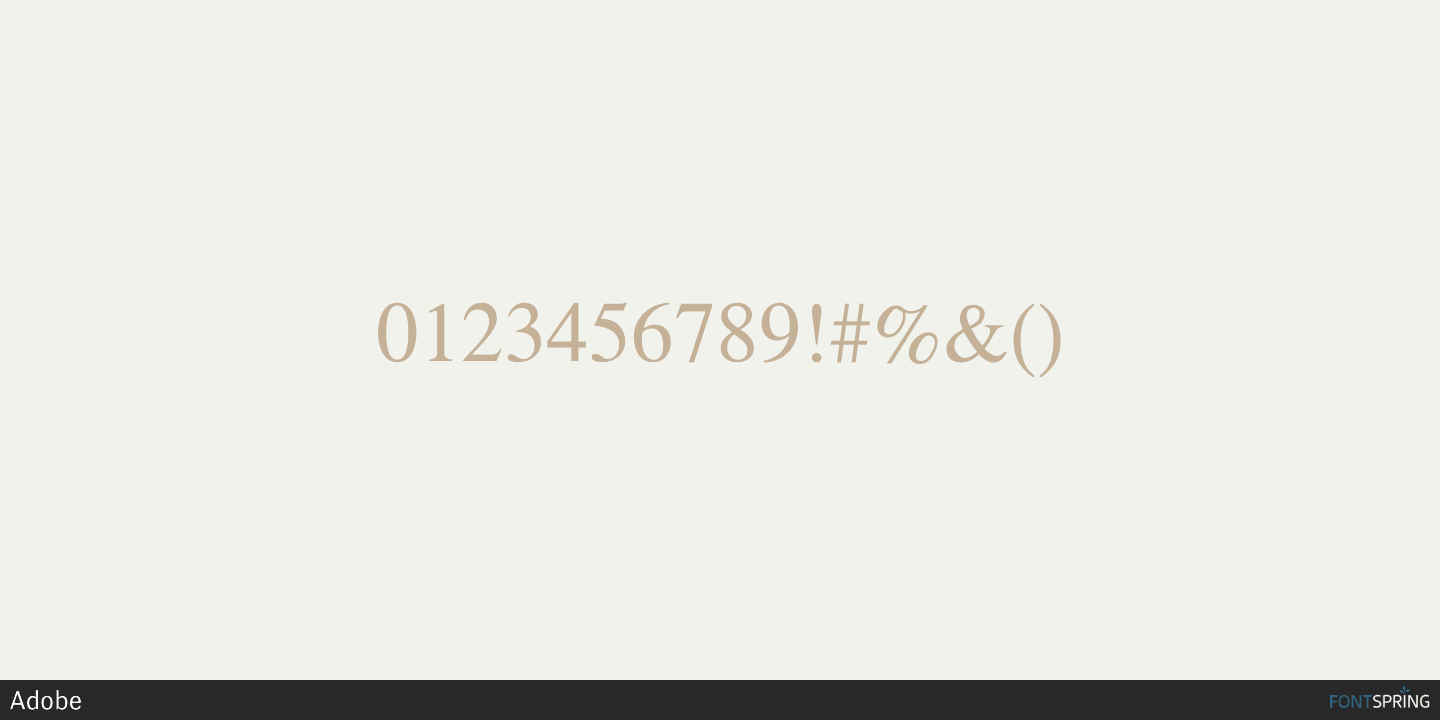
Symbol Std is a dingbat font family published by Adobe.
Symbol was designed at Adobe as a general-purpose set of pi characters to be included with the ROM fonts in the original Apple LaserWriter. The design is based on Adobe’s core font Times Roman. It includes a full Greek alphabet, many mathematical characters, and assorted dingbats.